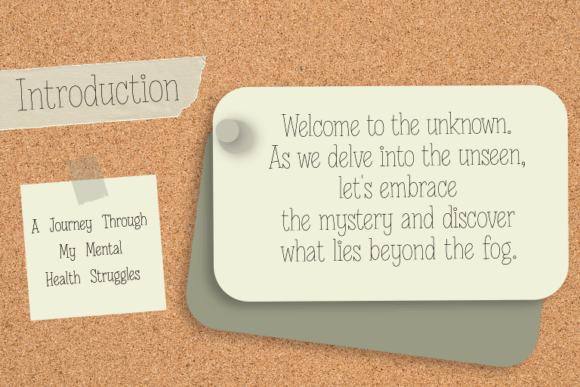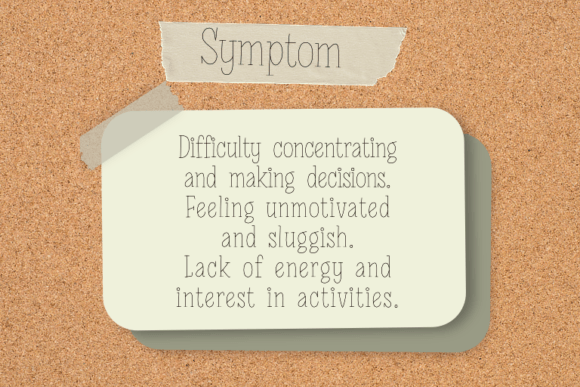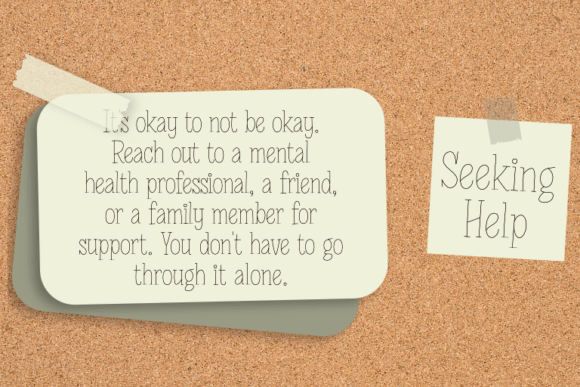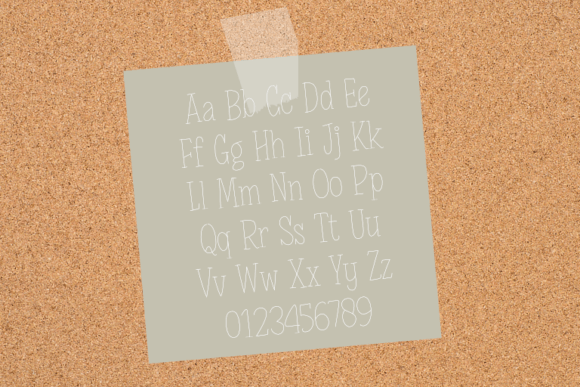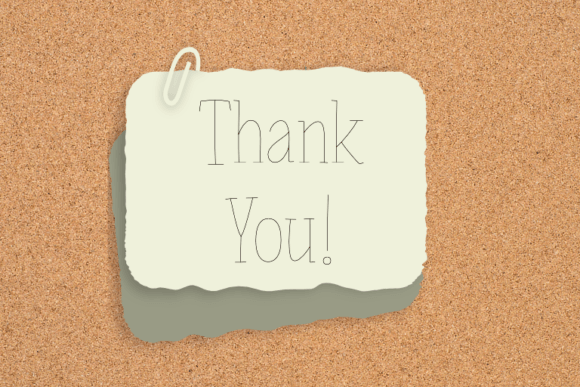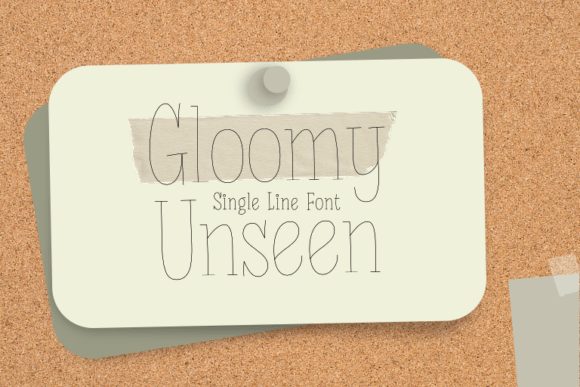
Discover the Charm of Gloomy Unseen Font: A Perfect Companion for Crafters and Designers
Are you on the lookout for a font that adds a touch of uniqueness and personality to your craft projects or greeting cards? Look no further than the Gloomy Unseen Font, a neat and casual single-line font designed to capture your heart. In this article, we’ll dive into the features and benefits of this lovely font, and explore how it can become your go-to choice for various occasions.
What is Gloomy Unseen Font?
Gloomy Unseen is a thoughtfully crafted single-line font that exudes a charming and laid-back vibe. Its elegant and simple design makes it an excellent choice for a wide range of applications, from crafting and card-making to digital design and writing. The font’s understated beauty allows it to complement various design styles, ensuring your creations stand out without overpowering them.
Designed Specifically for Cricut’s Pen Function
One of the unique features of the Gloomy Unseen Font is that it is specifically designed for use with Cricut’s Pen function. This means that crafters who use Cricut machines can easily integrate this font into their projects, creating beautiful and precise writing and designs. Whether you’re making custom signs, greeting cards, or decorations, Gloomy Unseen works seamlessly with Cricut’s technology to bring your ideas to life.
Why Choose Gloomy Unseen Font?
So, what makes Gloomy Unseen a standout choice for designers and crafters? Here are a few reasons:
- Versatility: Despite its single-line design, Gloomy Unseen is incredibly versatile. It can be used for formal and informal projects alike, making it a valuable addition to your font library.
- Ease of Use: The font’s simplicity ensures that it pairs well with a variety of images, patterns, and backgrounds, making it easy to incorporate into your designs.
- Emotional Connection: The subtle charm of Gloomy Unseen can evoke a range of emotions, adding a personal touch to your creations that resonates with recipients.
- Legibility: The clear and clean design of the font ensures that your text remains legible, even at smaller sizes, which is crucial for detailed craft projects.
Creative Applications of Gloomy Unseen Font
The possibilities are endless when it comes to using Gloomy Unseen in your projects. Here are some ideas to get you started:
- Greeting Cards: Add a personal touch to your greeting cards for birthdays, holidays, or special occasions with beautifully written messages.
- DIY Crafts: Use Gloomy Unseen to create custom signs, wall art, and decorations that reflect your personal style.
- Digital Design: Incorporate the font into your digital creations, such as social media graphics, blog posts, and digital planners.
- Paper Crafting: Perfect for paper crafting enthusiasts, Gloomy Unseen can be used for journaling, scrapbooking, and card making.
Tips for Getting the Most Out of Gloomy Unseen Font
To maximize the potential of Gloomy Unseen, consider the following tips:
- Experiment with Colors: Play around with different ink colors or digital text colors to find the perfect match for your project.
- Combine with Images: Don’t be afraid to pair Gloomy Unseen with various images or illustrations to enhance your design.
- Adjust Size and Spacing: Experiment with different font sizes and line spacings to achieve the desired look for your project.
| Font Name | Gloomy Unseen Font |
| Author | Single Line Studio |
Gloomy Unseen Font is more than just a font; it’s a creative companion that can elevate your craft projects and designs. Its elegant simplicity, versatility, and compatibility with Cricut’s Pen function make it an indispensable tool for crafters and designers. Whether you’re making greeting cards, custom signs, or digital content, Gloomy Unseen is sure to become your favorite go-to font. So why wait? Download Gloomy Unseen today and let your creativity shine!